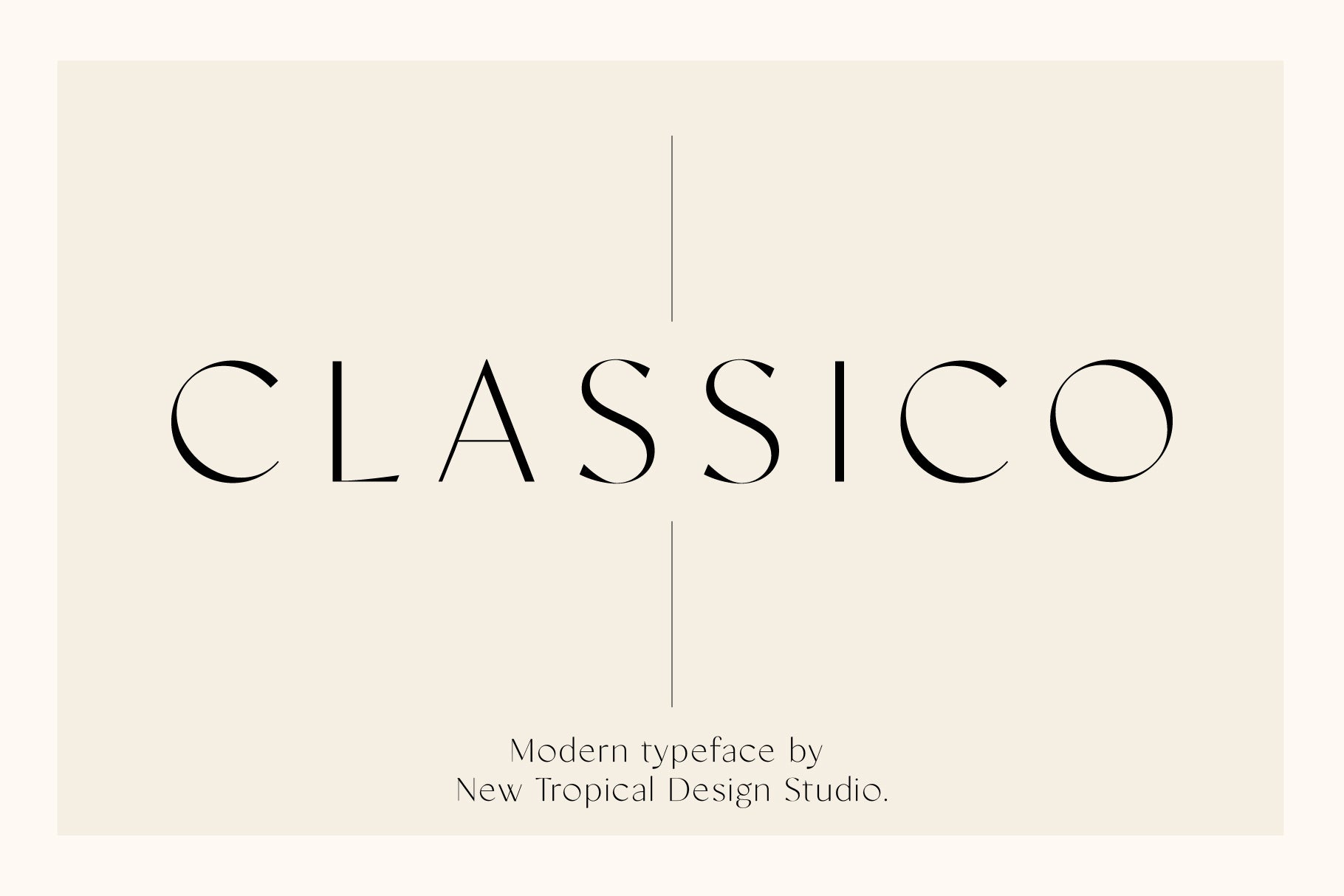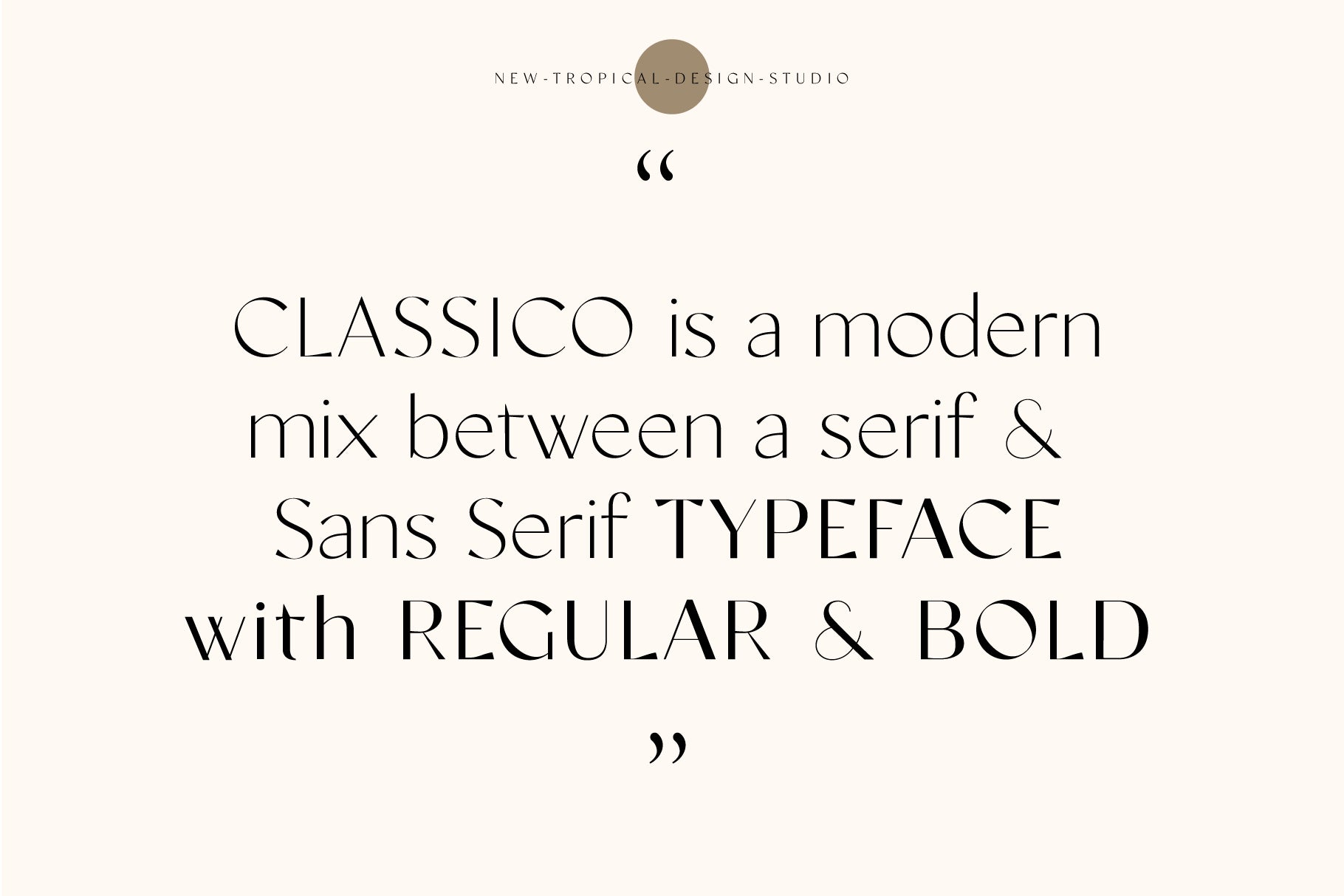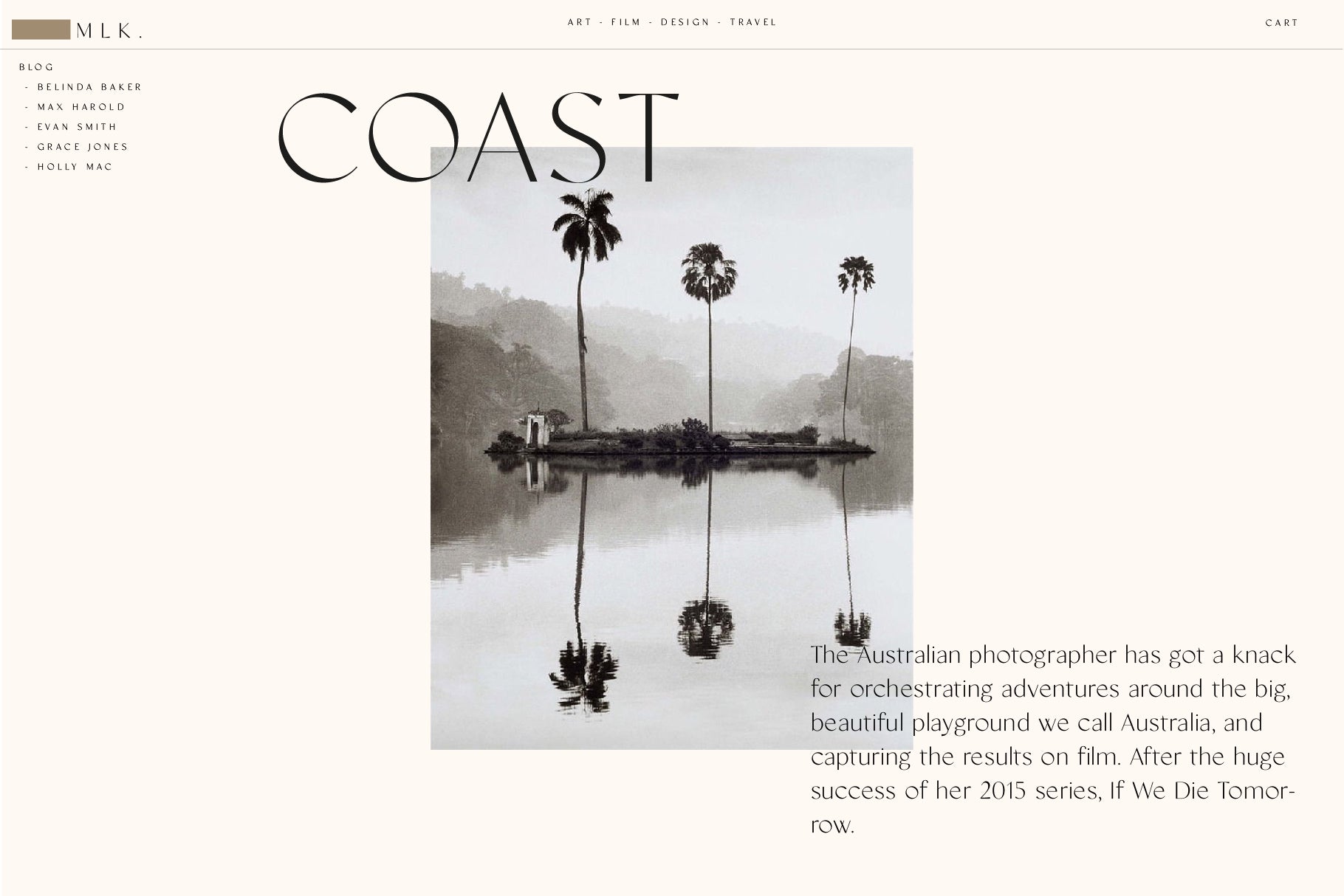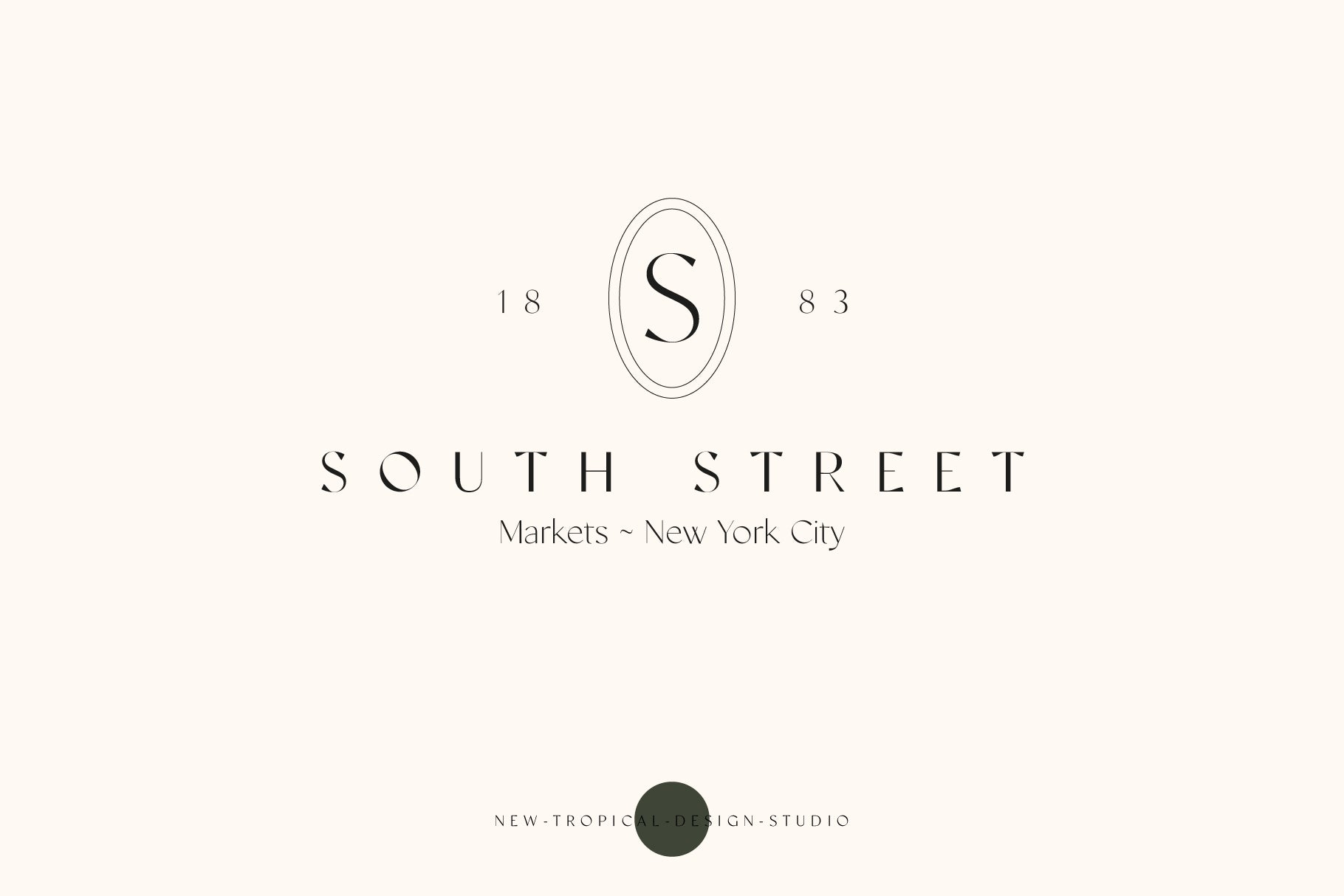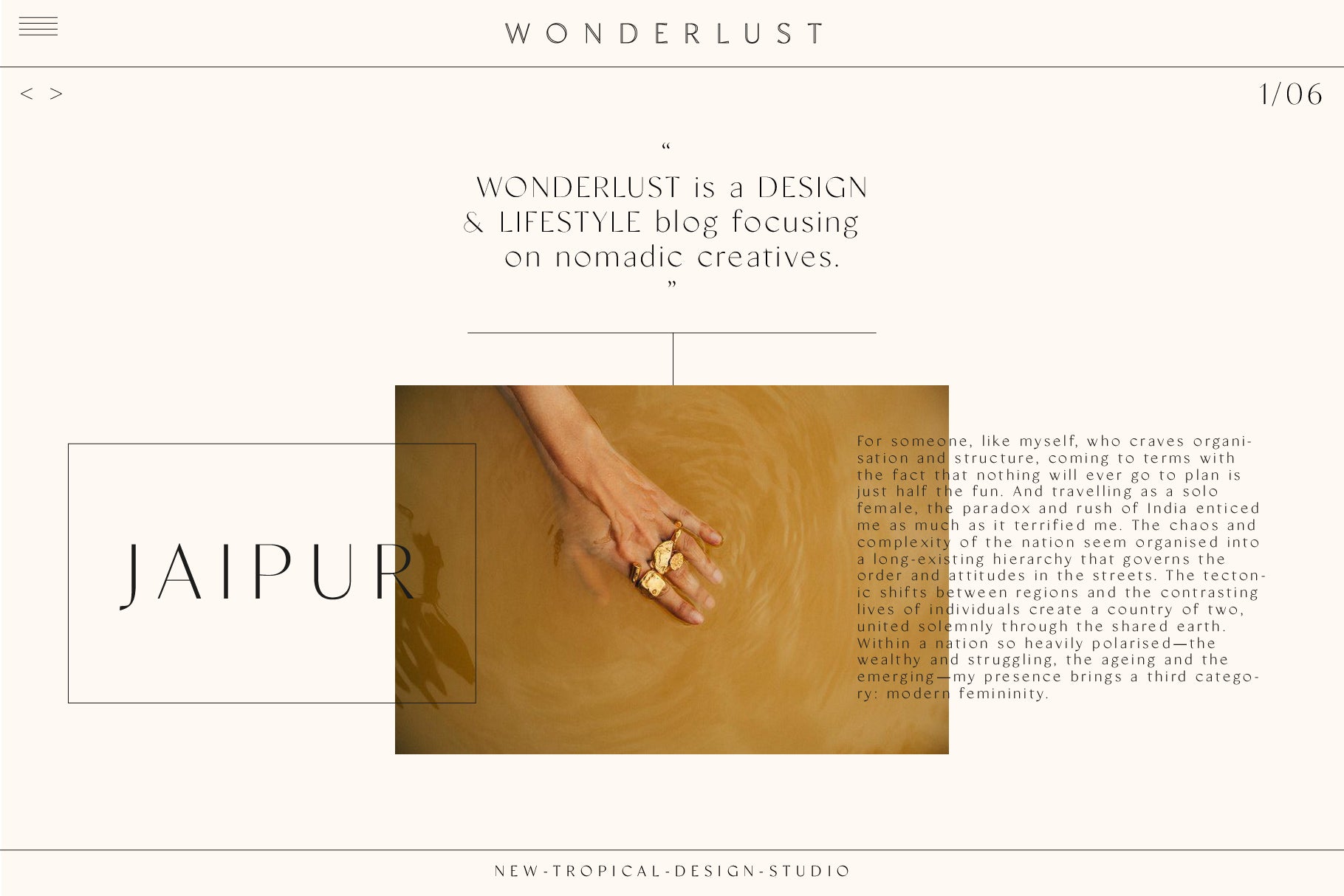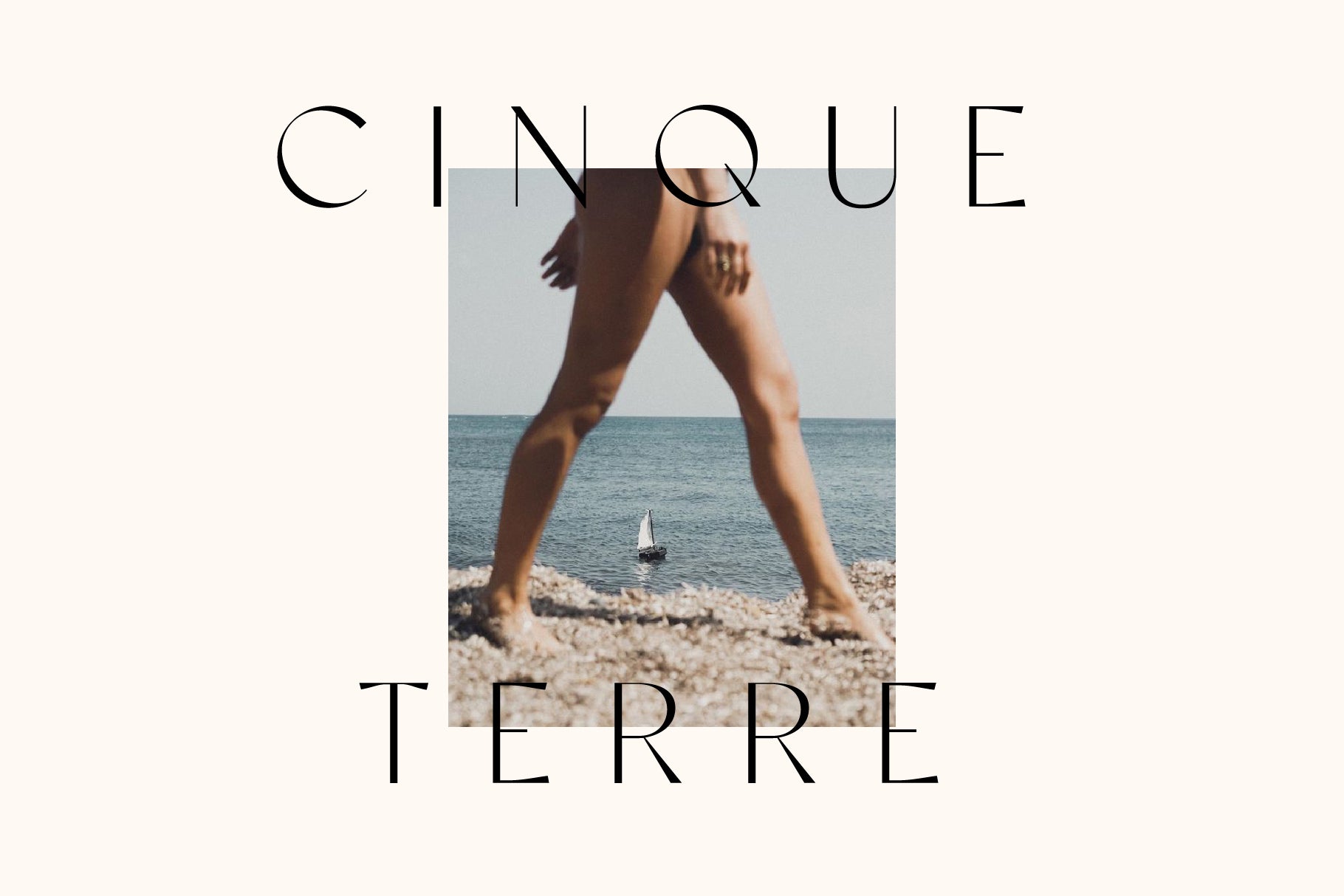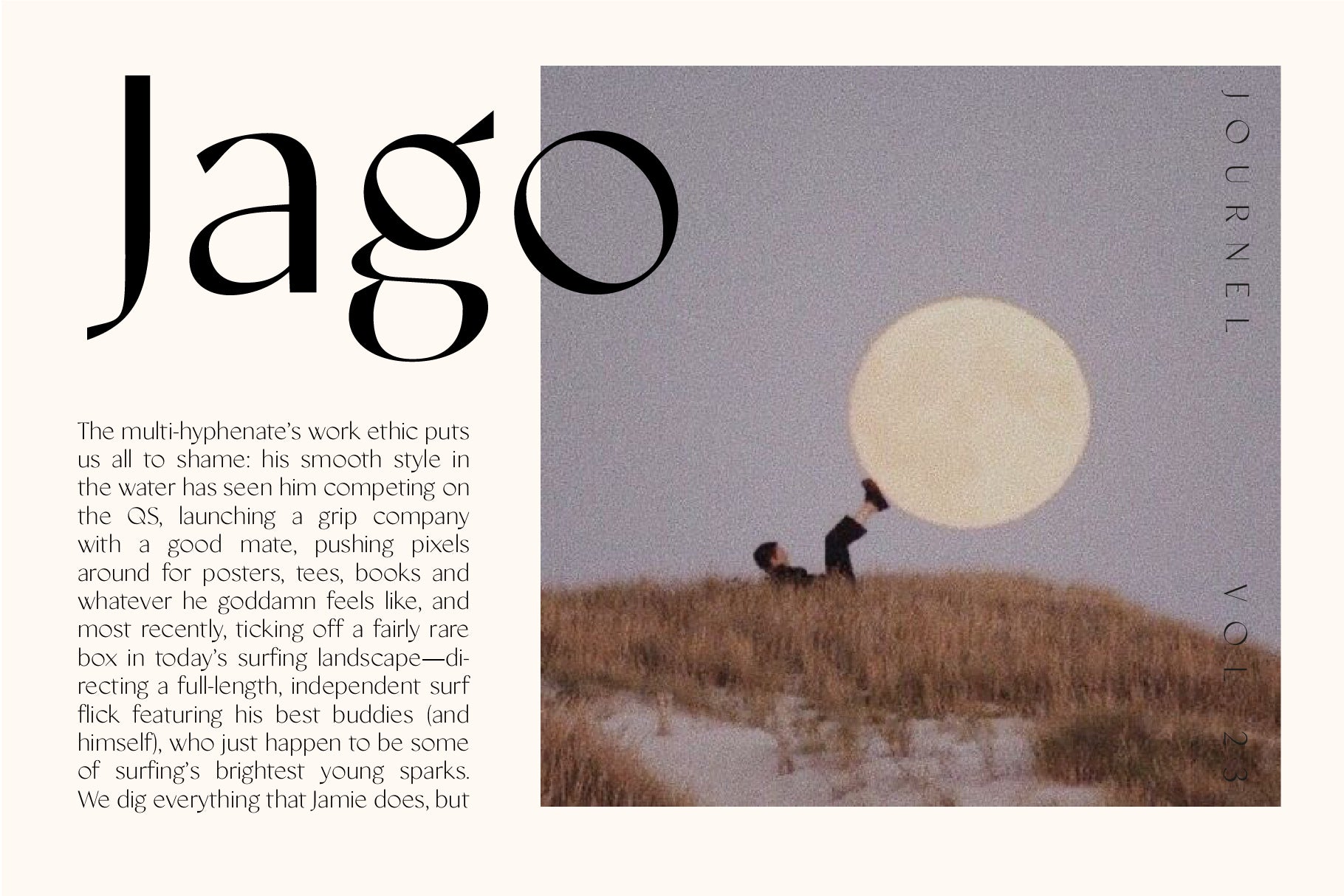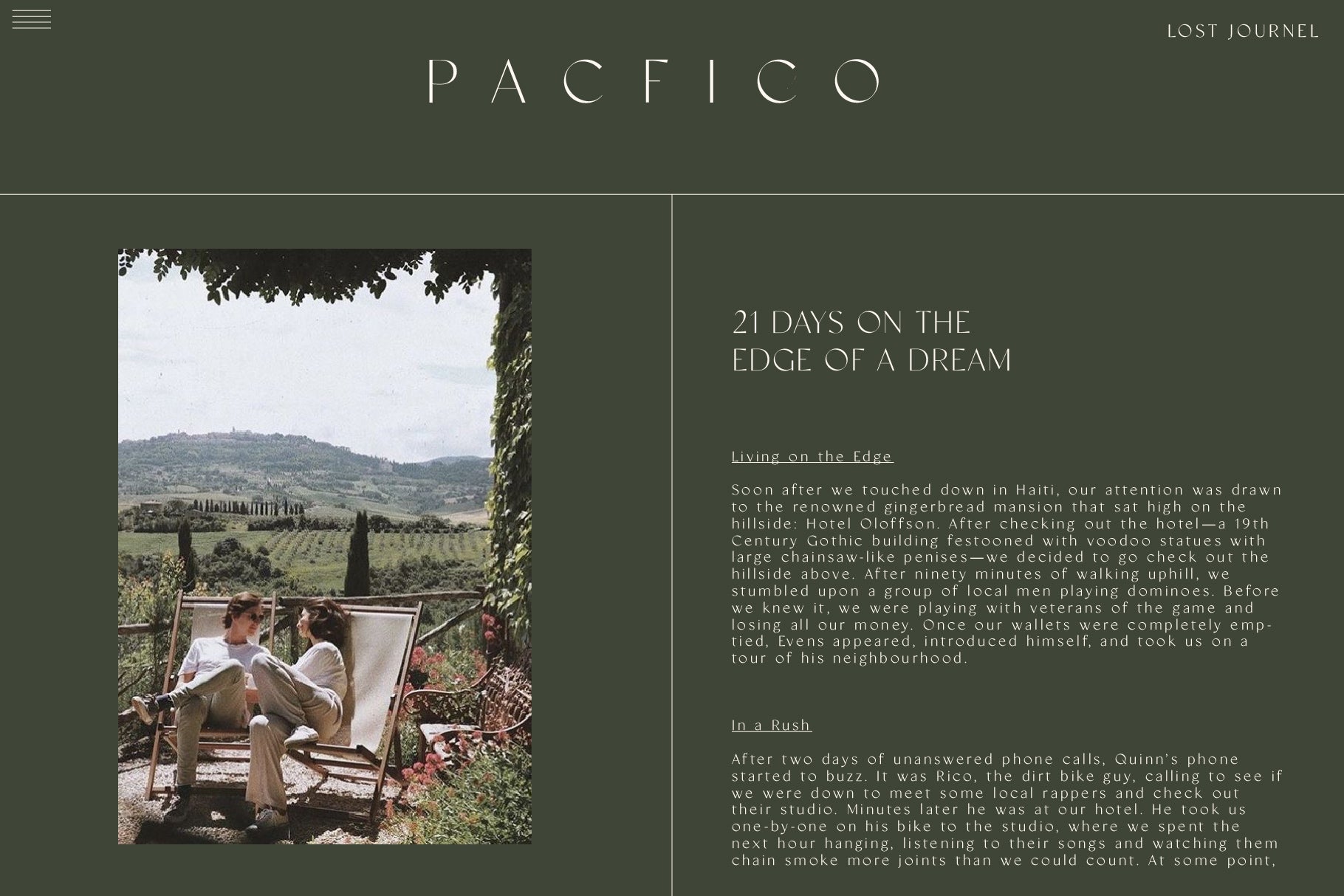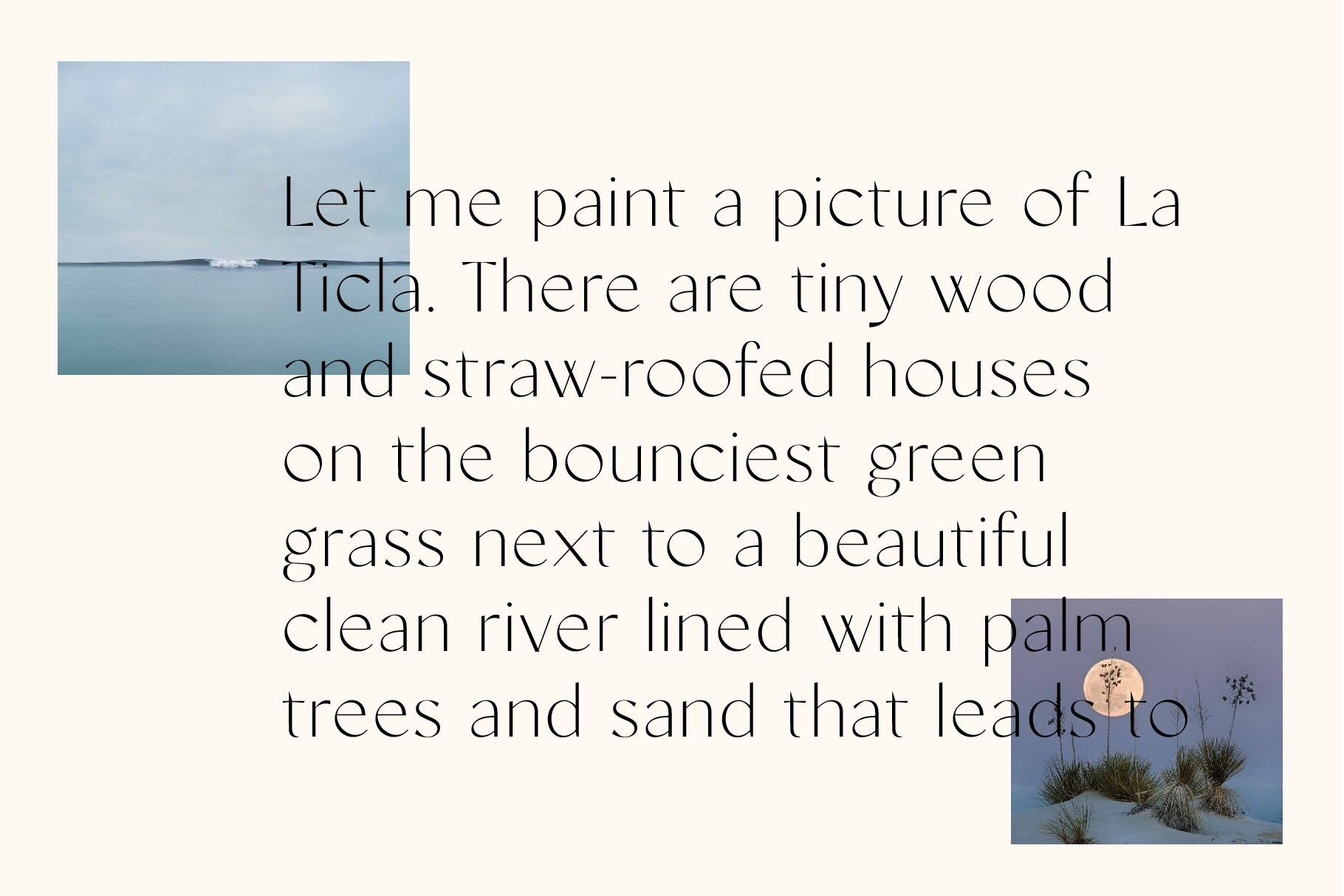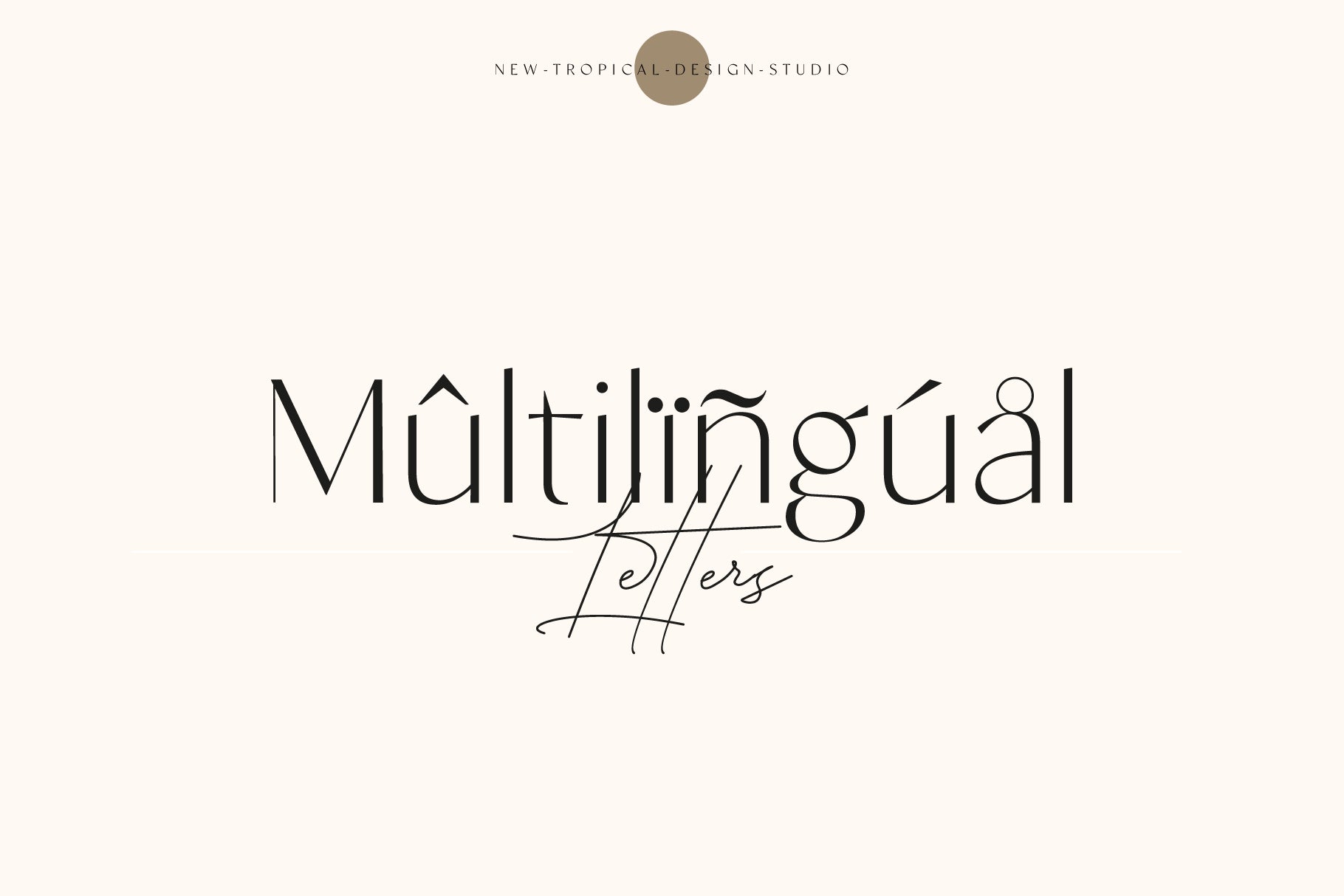
Classico
Classico is a stylish font that is both classic and minimal. A light, high contrast font that is perfect for feminine logo marks, fashion mastheads & editorial design.
Non English glyphs included:
ą á â à ä å ã æ ć ç ę é ê è ë í î ì ï ı ł ñ ń ó ô ò ö õ ø œ ś š ß ú û ù ü ý ÿ ž ź ż.Ą Á  À Ä Å Ã Æ Ć Ç Ę É Ê È Ë Í Î Ì Ï Ł Ń Ñ Ó Ô Ò Ö Õ Ø Œ Ś Š Ú Û Ù Ü Ý Ÿ Ź Ż